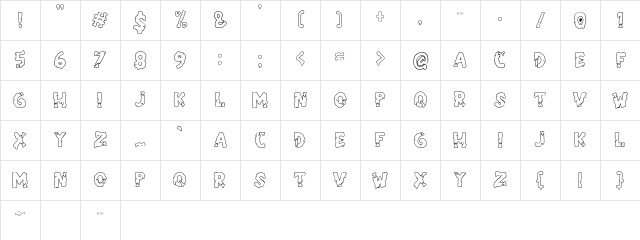
Complete Dr.Ziemboz 2 Regular glyph index. Displaying only characters natively supported by Dr.Ziemboz 2 Regular font.
Dr.Ziemboz 2 is a composed and adaptable typeface that performs quietly and consistently across a wide range of design contexts.